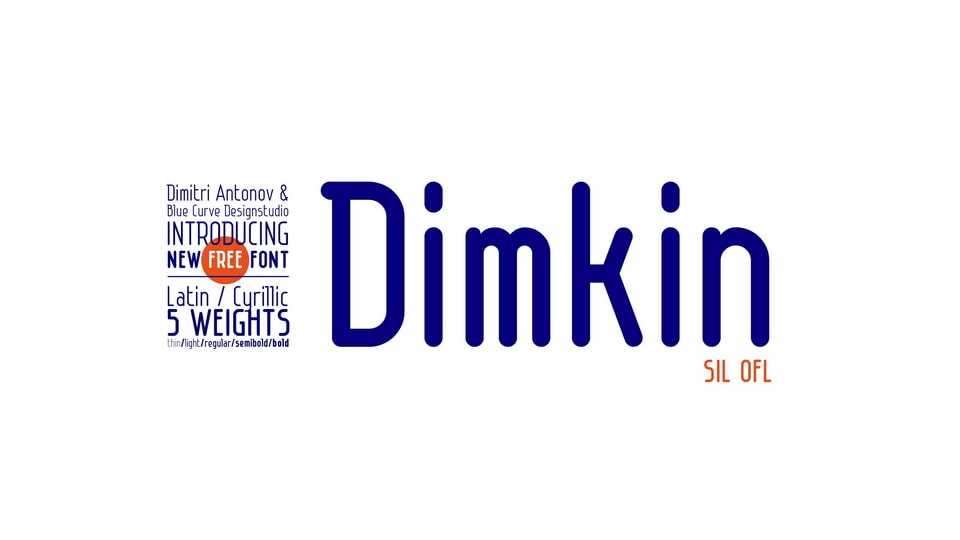
Download Dimkin font, an original condensed rounded sans serif typeface that seamlessly blends modern simplicity with a touch of friendly curves. Dimkin font is meticulously crafted to exude a sleek and contemporary vibe, with condensed proportions adding a touch of sophistication.
Designer: Dimitri Antonov